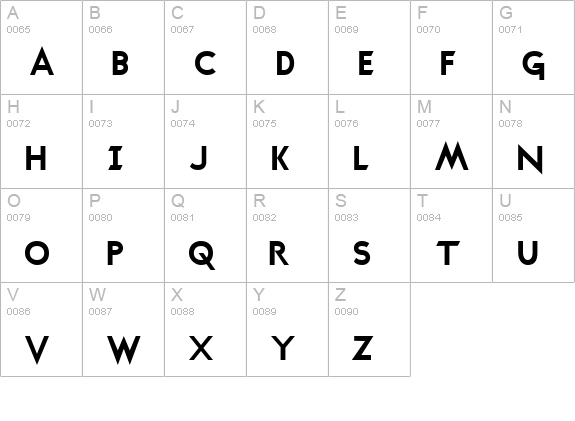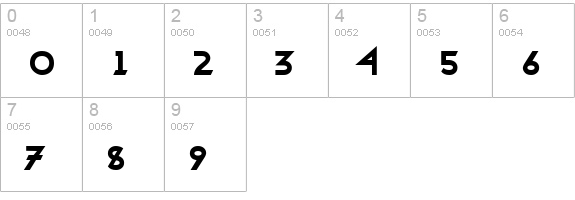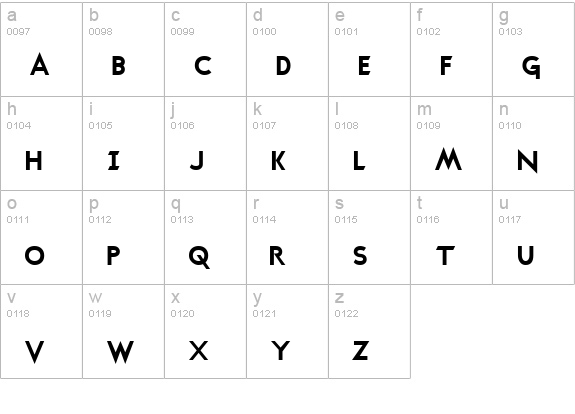
Transmetals Normal Font Details
Transmetals Normal is the standard, neutral variant in the Transmetals typeface family \xE2\x80\x94 well suited to general body text, paragraphs, and standard typographic work.
Introducing Transmetals Normal, a captivating font that effortlessly combines modernity with a touch of elegance. This versatile typeface is perfect for those seeking a clean and contemporary look, while still appreciating the timeless beauty of traditional letterforms. Transmetals Normal stands out with its balanced proportions and refined curves, making it suitable for a wide range of design projects. Whether you're designing a logo, creating a stylish headline, or adding a touch of sophistication to your printed materials, this font is sure to make a lasting impression. The beauty of Transmetals Normal extends beyond its aesthetic appeal. It is also highly legible, ensuring that your message is conveyed clearly and effectively. Its well-crafted letterforms ensure smooth readability across various mediums, from print to digital. But the best part? Transmetals Normal is absolutely free. Yes, you read that right! This remarkable font is freely available to download at FontsMarket.com, where you can access a vast collection of high-quality fonts for all your design needs. With just a few clicks, you can bring this exceptional typeface into your creative arsenal, without spending a dime. So why wait? Embrace the modern elegance of Transmetals Normal and elevate your designs to new heights. Download it for free at FontsMarket.com and let your creativity soar.